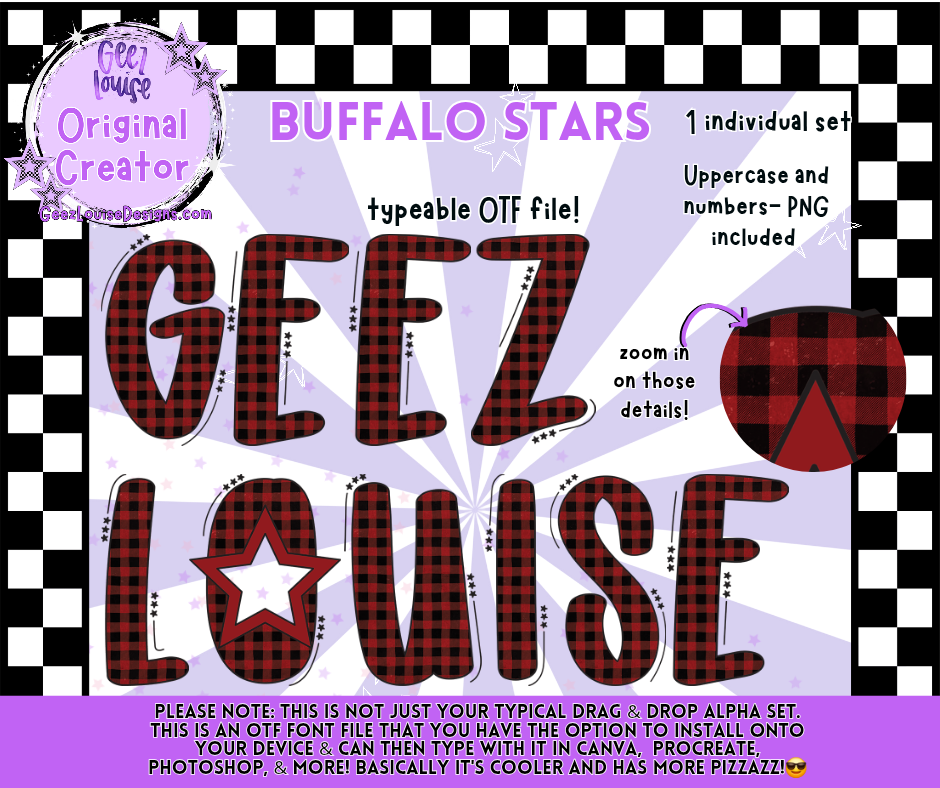
BUFFALO STARS — Typeable OTF Font + PNG
Plaid meets punk. This font is stitched for rebellion.
BUFFALO STARS is a typeable OTF font wrapped in buffalo plaid and sprinkled with star power. Designed for creators who want their type to feel like a flannel-clad scream, this font brings cozy chaos to every project. Whether you're crafting merch, building alt branding, or just need your letters to stomp through the feed—this one's built to stand out.
Not your average drag-and-drop alpha—this is installable, editable, and full of punk pizzazz
Designed for alt creators, merch makers, and chaos conjurers
Zoom-worthy details that hold up in any layout